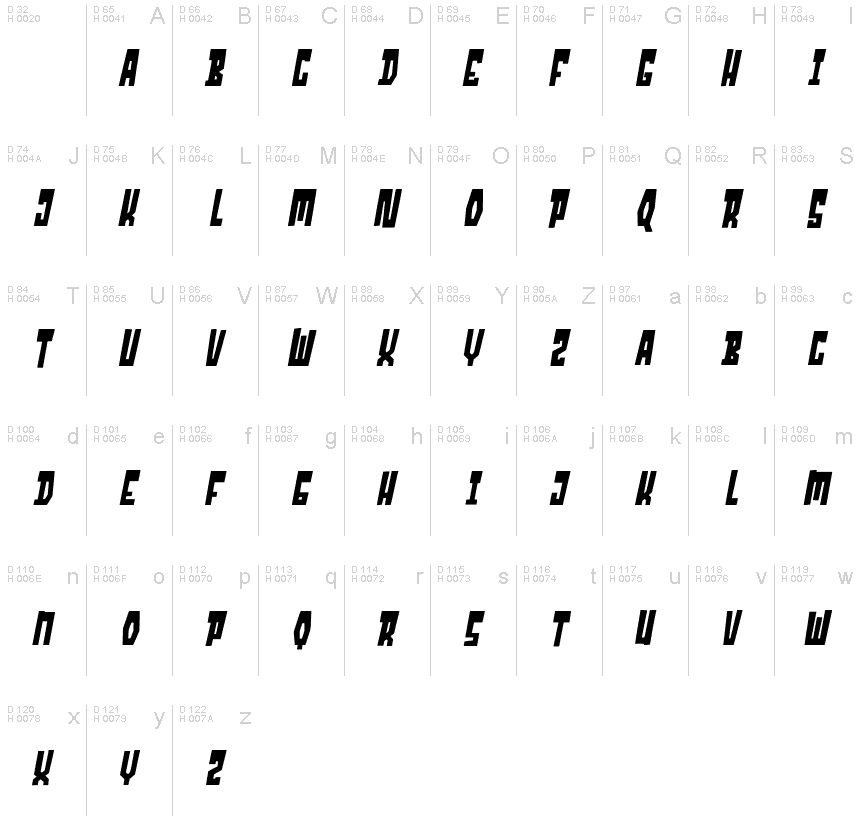
Sloanstone Free Font Regular
Sloanstone, crafted by Maulana Creative, is an extraordinary display font with a touch of whimsy.
Its cartoon style exudes playfulness and charm, making it perfect for children's book covers, toy packaging, and animated movie titles. With its semi-bold weight, Sloanstone brings a boldness to your designs while maintaining legibility. The font's extra-condensed width adds a sleek and modern feel to posters, logos, and website headers.